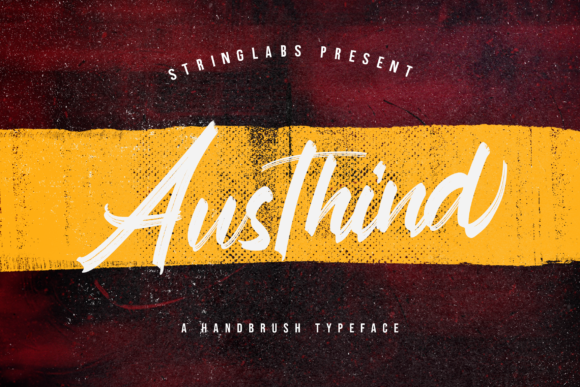
The Magic of Austhind Font: Bringing Your Creative Ideas to Life
I’ll never forget the moment I stumbled upon the perfect font for a project I was working on. I had been searching for what felt like an eternity, trying out font after font, but nothing seemed quite right. That was until I discovered Austhind, a gorgeous handwritten font designed with the help of an outstanding brush pen. From that moment on, I knew I had found the one. In this article, I’ll share my experience with Austhind, and show you can make the most of this beautiful font in your own creative projects.
A Personal Review of Austhind Font
- ✨ Unique and elegant handwriting style: Austhind has a distinct, cursive feel that’s perfect for adding a personal touch to your designs.
- ✅ Wide range of applications: From invitations and greeting cards to branding and advertising, Austhind is versatile enough to fit in with any creative project.
- 💫 Easy to read and understand: Despite its elegant, handwritten feel, Austhind is surprisingly legible, making it perfect for body text and longer blocks of content.
While Austhind is an amazing font, there are a few things to keep in mind:
- ⚠️ Limited use in very small sizes: As with many handwritten fonts, Austhind can become a bit tricky to read when used in very small sizes. Be sure to test it out before committing to a particular design.
- 🤔 Some letters may require manual kerning: Depending on your design software and the specific project you’re working on, you may need to adjust the kerning on certain letters to get the best results.
One of the best things about Austhind is its support for OpenType features and glyphs. This means you can access a range of stylistic alternates, swashes, and other special characters to really make your text stand out.
The Story Behind Austhind Font
Austhind was designed by a talented typographer who wanted to create a font that captured the elegance and expressiveness of handwritten writing. Using an outstanding brush pen, they carefully crafted each letter and character to create a truly unique and beautiful font.
| Font Name | Austhind Font |
| Author | StringLabs |
| What is Austhind font best used for? | Austhind is a versatile font that’s perfect for a wide range of creative projects, from invitations and greeting cards to branding and advertising. |
| Is Austhind easy to read? | Yes, despite its elegant, handwritten feel, Austhind is surprisingly legible and easy to read. |
| Does Austhind support OpenType features? | Yes, Austhind supports OpenType features and glyphs, which means you can access a range of stylistic alternates, swashes, and other special characters. |